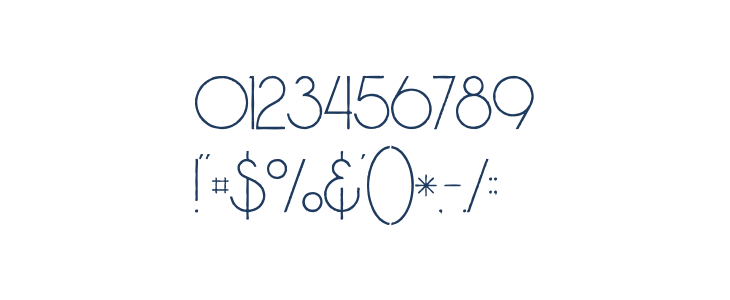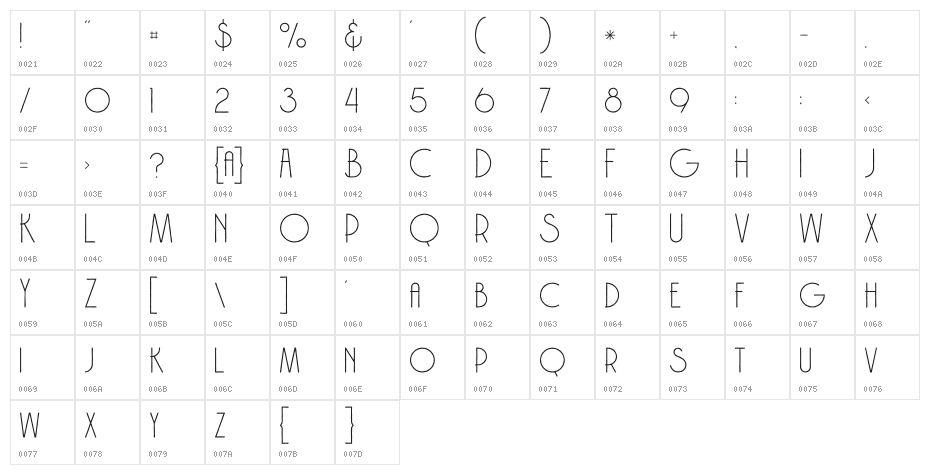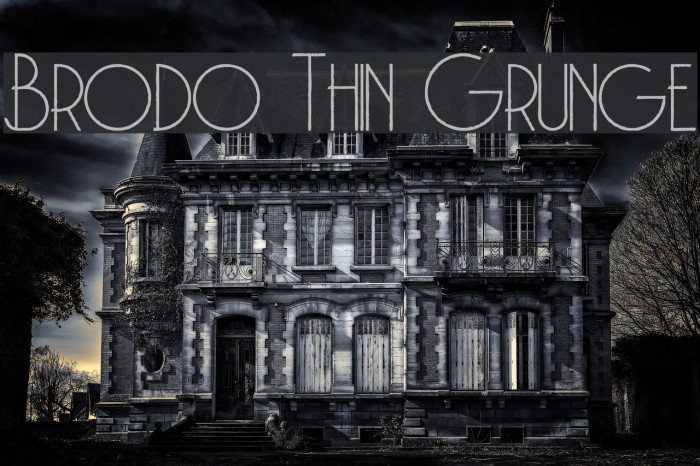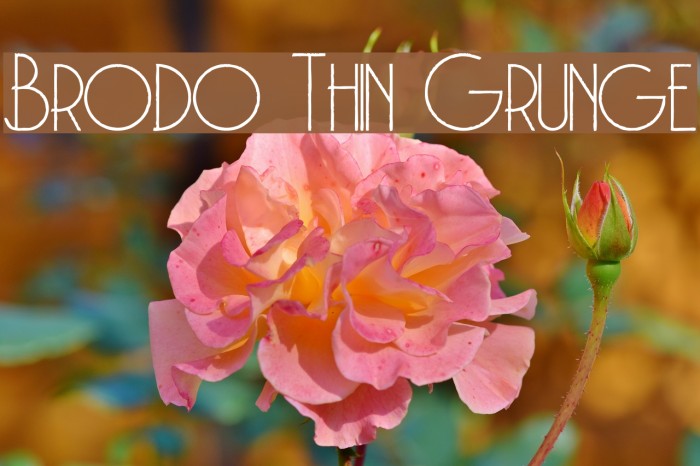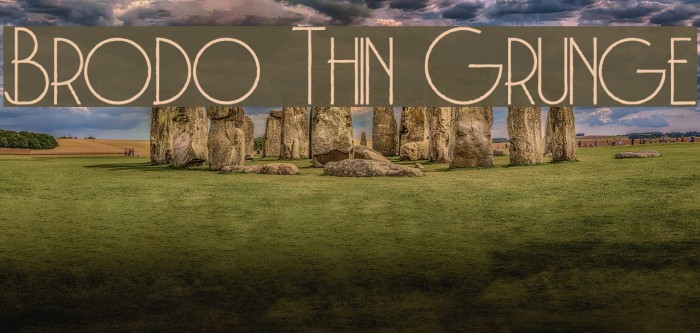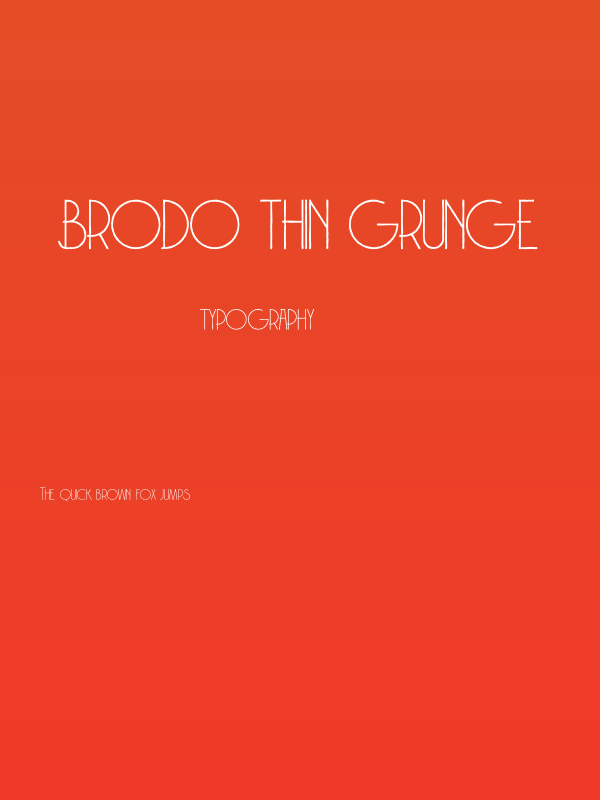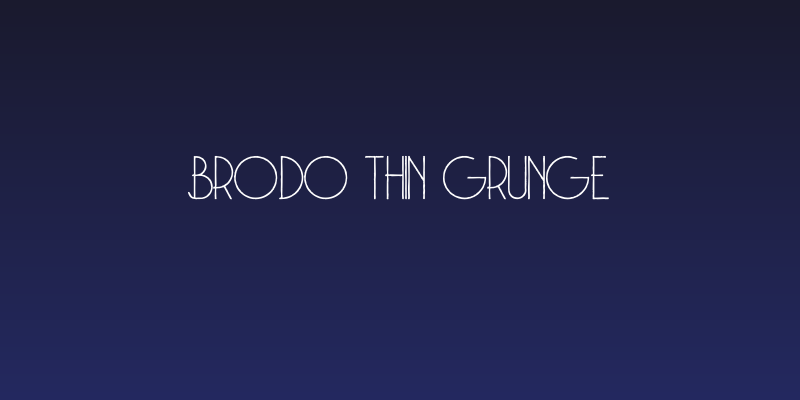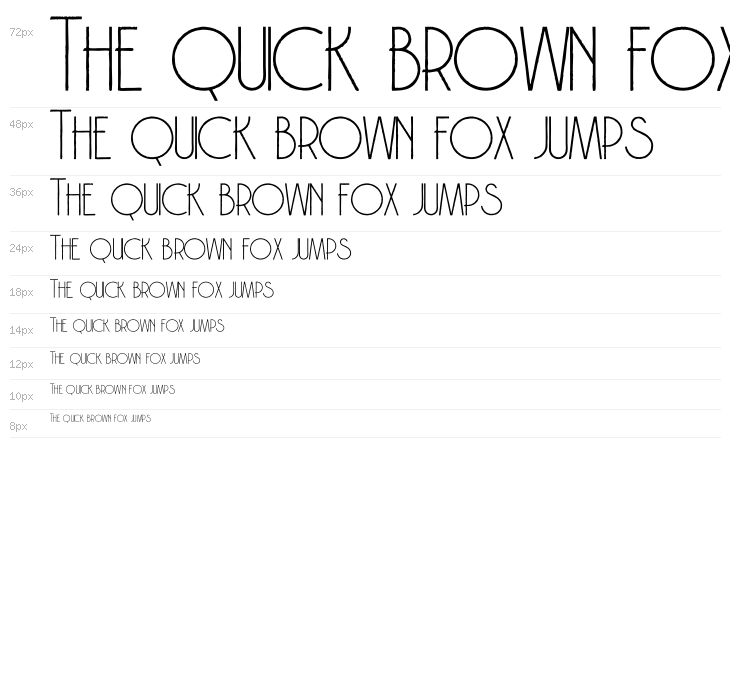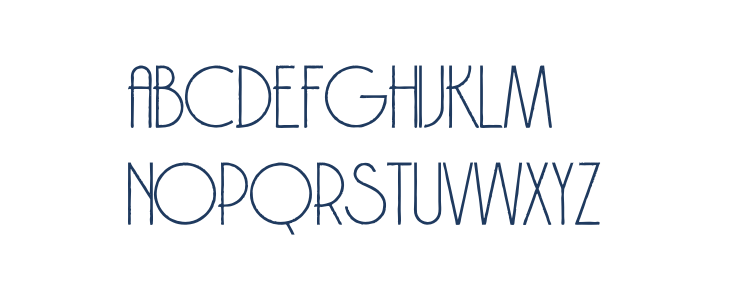
Brodo Thin Grunge Font
Brodo Thin Grunge Description
This font features a thin, grunge-inspired style with a distinctively worn and textured appearance. The characters are elongated and narrow, giving a tall and elegant look. The uppercase and lowercase letters maintain a consistent height, while the numbers and special characters follow the same design ethos. The strokes are uneven, adding to the distressed and vintage feel, making it ideal for projects that require a touch of rustic charm. The font's unique character is emphasized by its irregularities, which contribute to its overall artistic and handcrafted aesthetic.
| Proposed Projects | Ideal for vintage posters, album covers, artistic branding, and rustic-themed designs. |